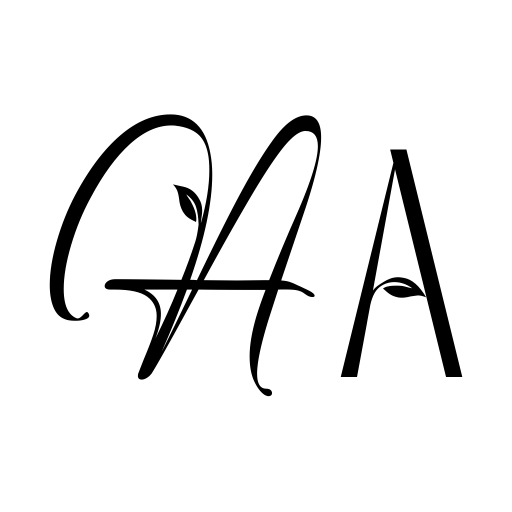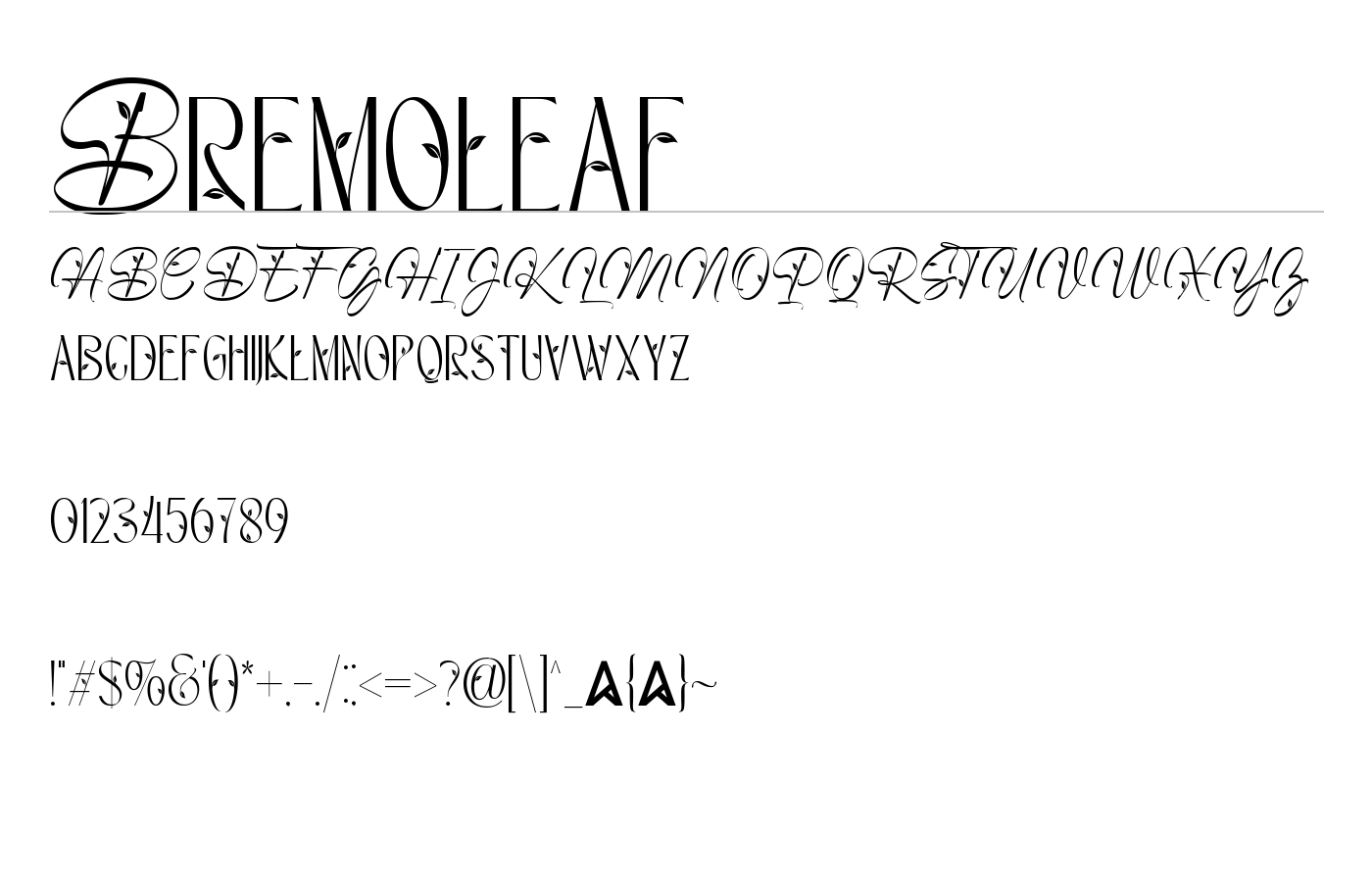
Bremoleaf is a delicate serif font with an artistic flair, featuring slender, high-contrast strokes and elegant leaf motifs integrated into its letterforms. Its unique combination of graceful curves and refined details gives it a sophisticated, nature-inspired feel, making it perfect for luxury branding, invitations, and creative editorial projects where a touch of elegance and personality is desired. This font stands out for its decorative style, ideal for headlines and special use rather than body text.
Bremoleaf Font
About Bremoleaf Font
| Font family | Bremoleaf Font |
| Designer | Kana Widana |